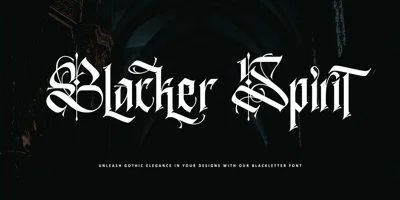
Blacker Spirit Font
Blacker Spirit Font is perfect for bold fashion magazine headers, dramatic editorial layouts, powerful brand identities, striking poster campaigns, contemporary art exhibitions, avant-garde design projects, high-impact advertising materials, luxury streetwear branding, modern typography showcases, and confident corporate presentations. Its commanding presence makes it ideal for projects requiring visual dominance and contemporary sophistication.
What makes Blacker Spirit Font exciting is its fearless fusion of typographic boldness and contemporary spirit with extreme weight variations and confident letterforms that demand immediate attention and create unforgettable visual impact. The font features maximum contrast ratios, dramatic stroke weights, and powerful character construction that create commanding atmosphere and modern authority. Its bold personality brings strength and confidence to contemporary designs while maintaining the sophisticated quality essential for high-end applications and luxury presentations. The carefully engineered dramatic elements ensure maximum visual impact while preserving the distinctive character that embodies the essence of contemporary boldness and design excellence.
Blacker Spirit Font comes in multiple powerful variations including Light, Regular, Bold, Black, and Ultra styles. Each family member maintains the distinctive commanding character while offering comprehensive weight options for dramatic typography and bold brand system development. The complete font family includes stylistic alternates, modern ligatures, and contemporary symbols that enhance the powerful aesthetic and provide essential tools for bold communication excellence.
Whether you're developing bold brands, dramatic publications, or high-impact design projects, Blacker Spirit Font provides the commanding presence needed to communicate with design-conscious audiences who appreciate typographic boldness and contemporary sophistication. The font's powerful appeal resonates with creatives, fashion professionals, and bold thinkers seeking authentic design authority and modern confidence. Its comprehensive character set includes contemporary symbols and bold punctuation marks, making it perfect for creating complete dramatic brand systems and memorable bold storytelling across diverse contemporary applications and confident design projects that celebrate typographic excellence and visual dominance.